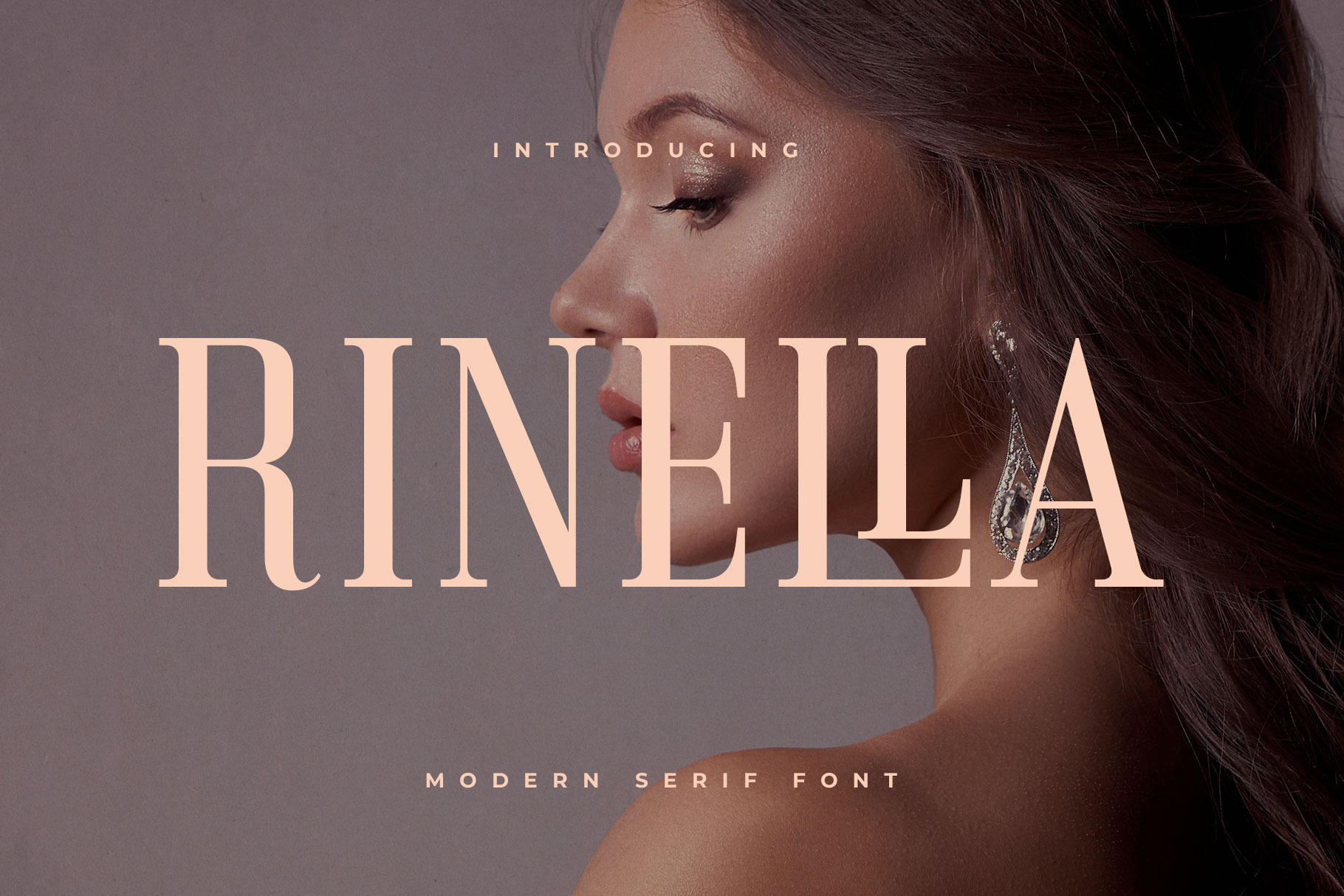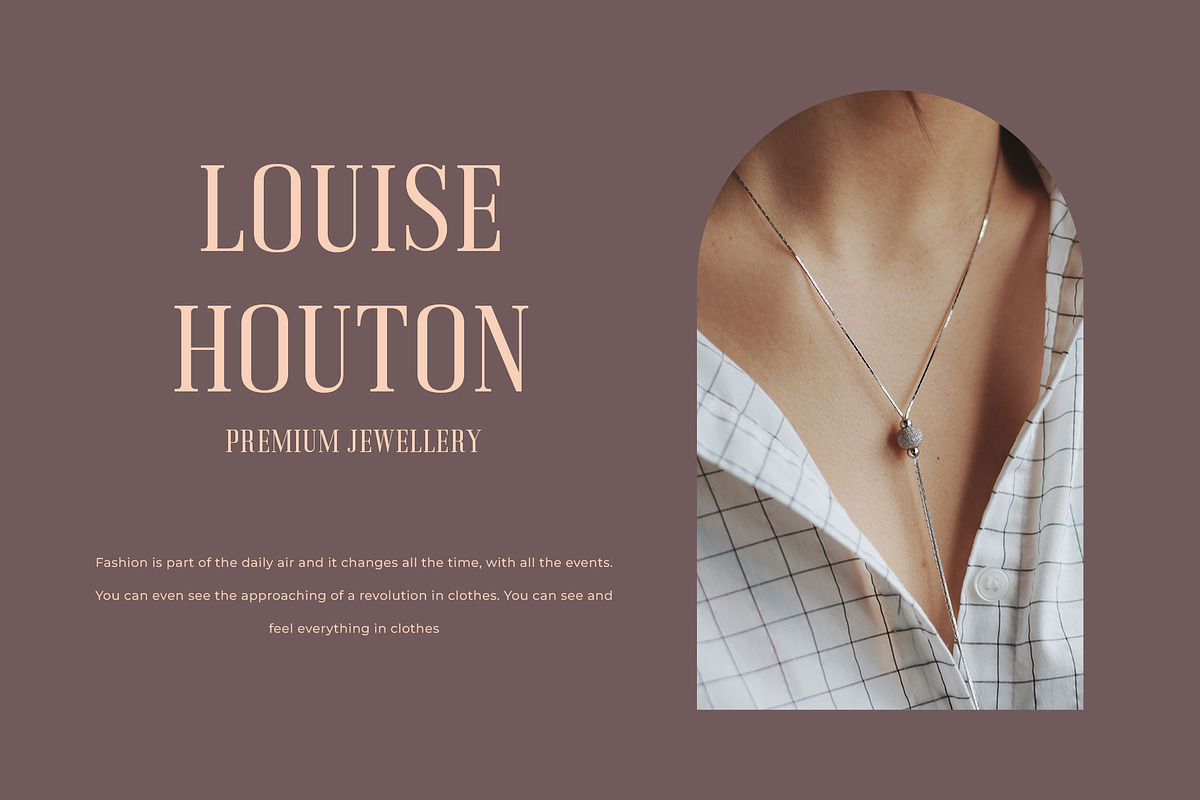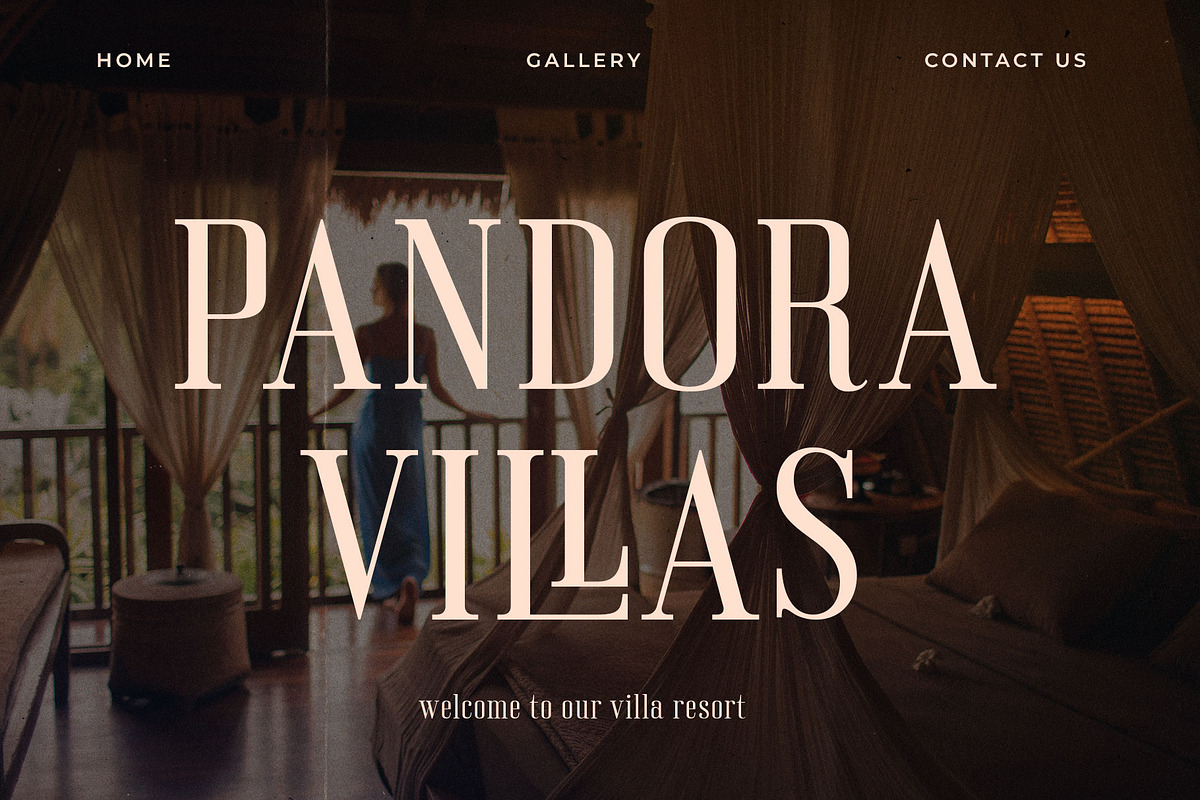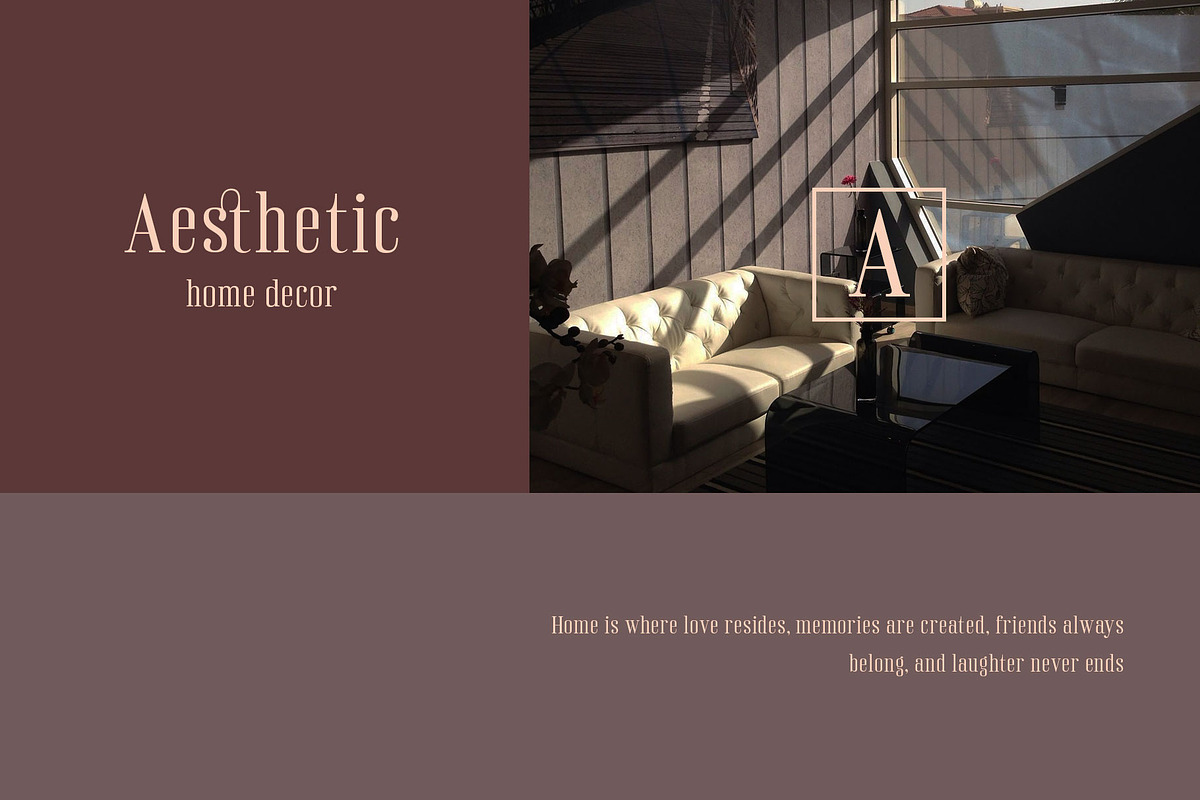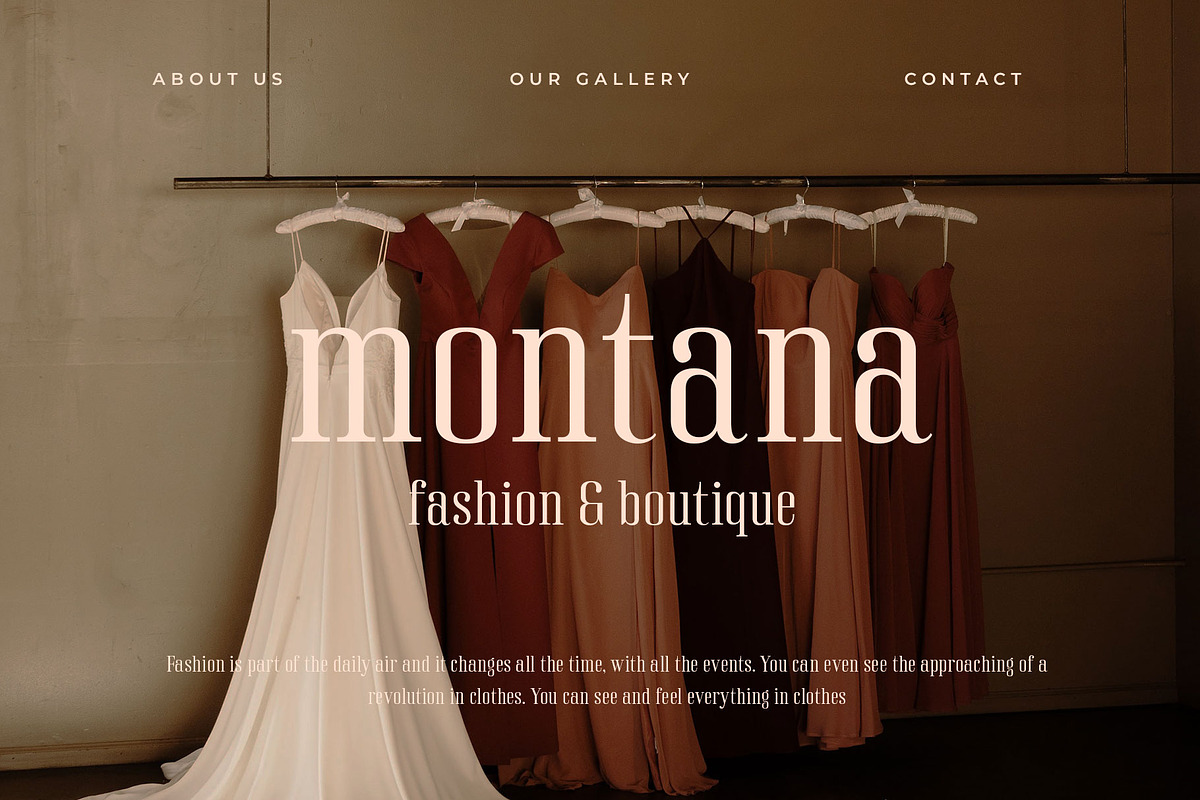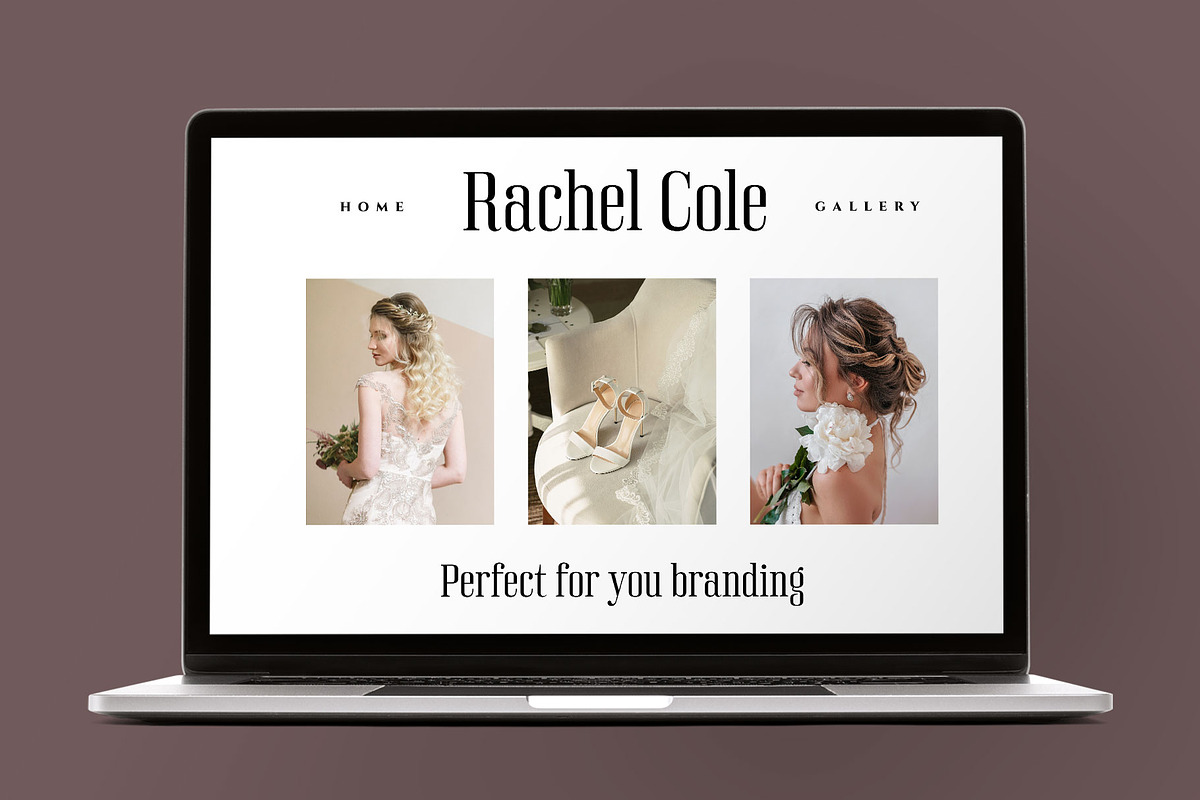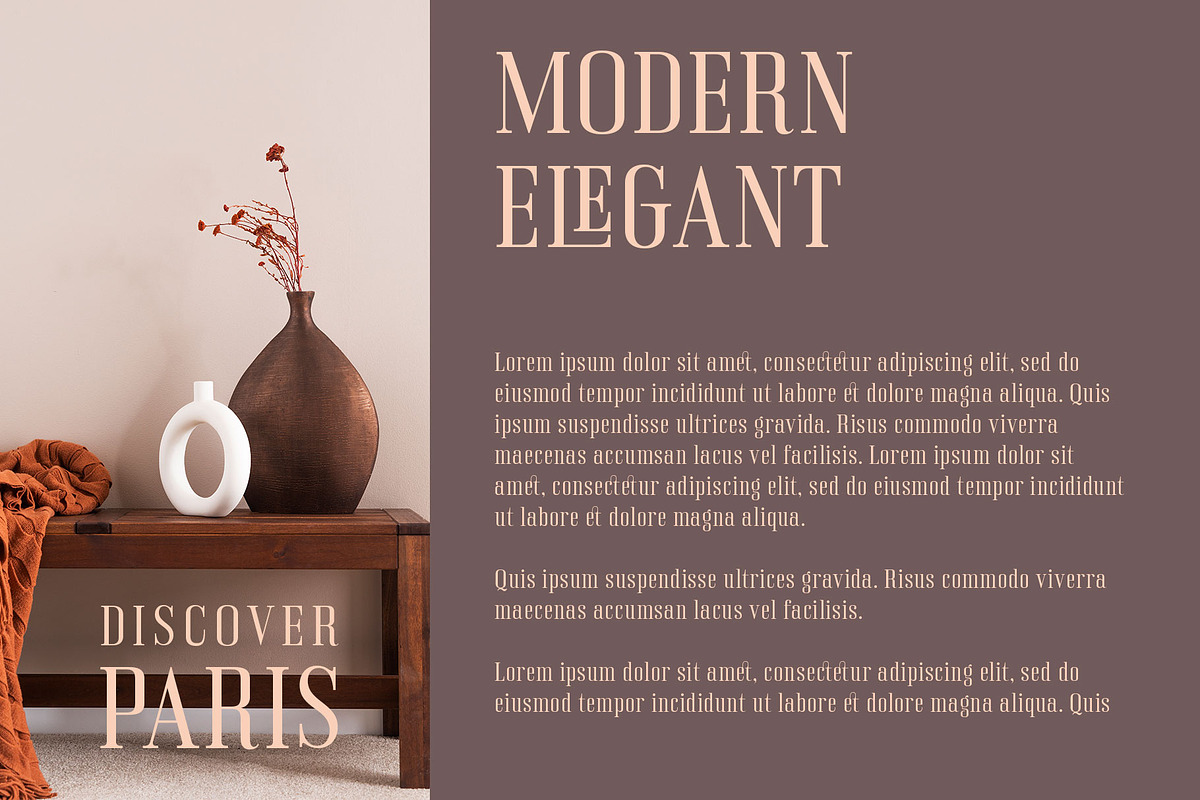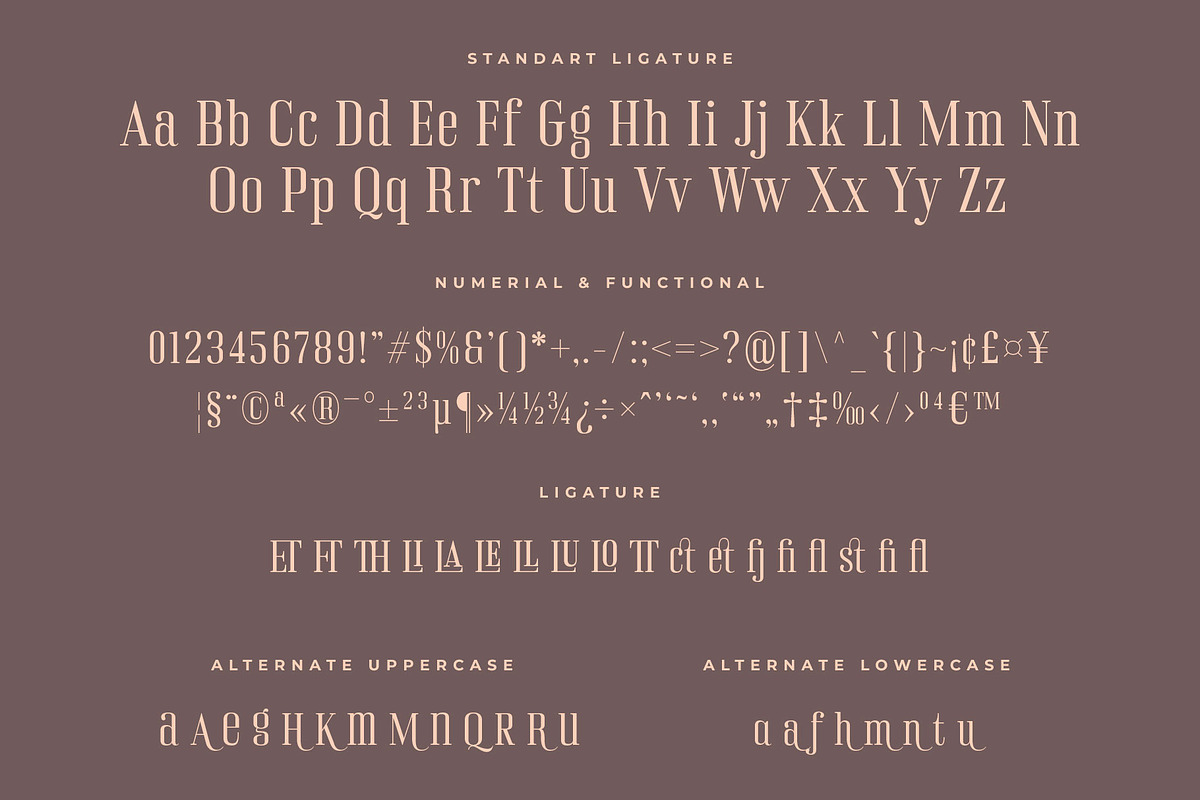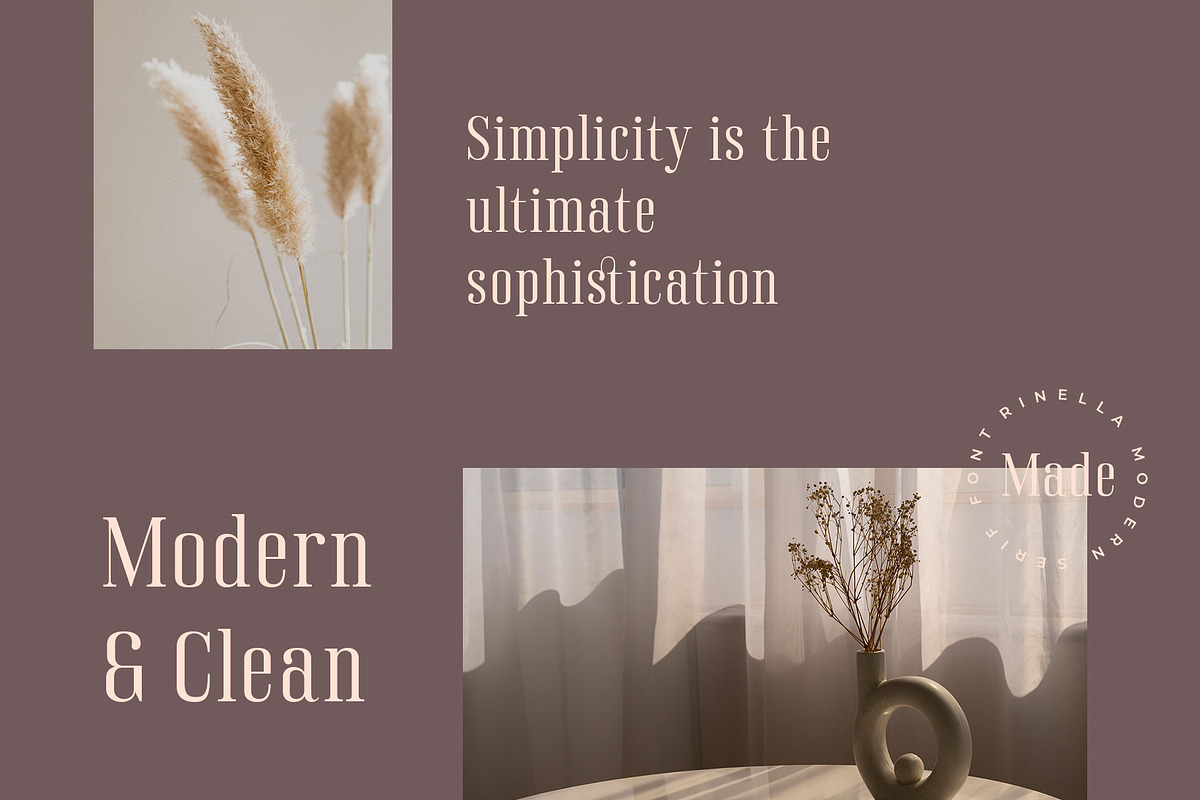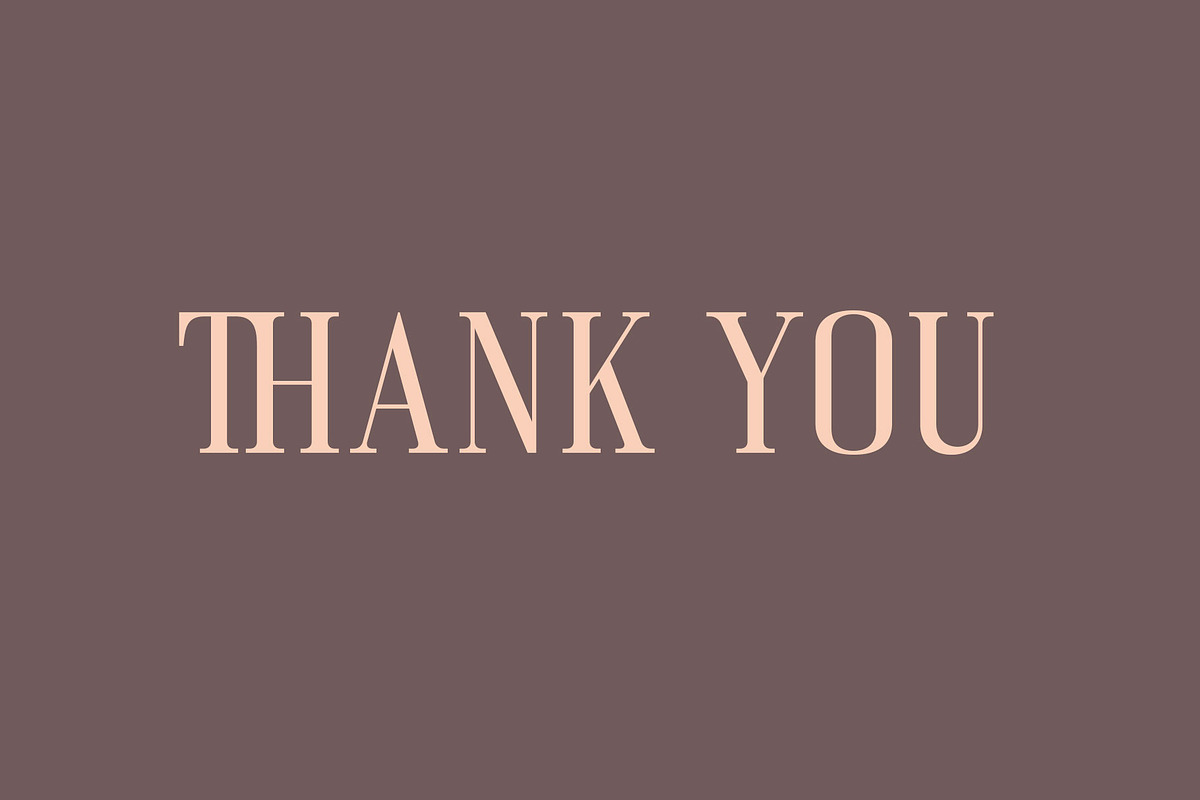
Rinella Modern Serif font
Rinella - a simple & elegant display modern serif with Sophisticated shape and have unique ligature for optional. Specially designed for fashion-themed projects, perfectly suitable for creating elegant, chic, lifestyle design such as logos, title, and magazine, and more. Now you have more choice when using Rinella for typography. Rinella here to make your work to high level!!!
- Standar character A-Z and a-z
- Alternate and ligature